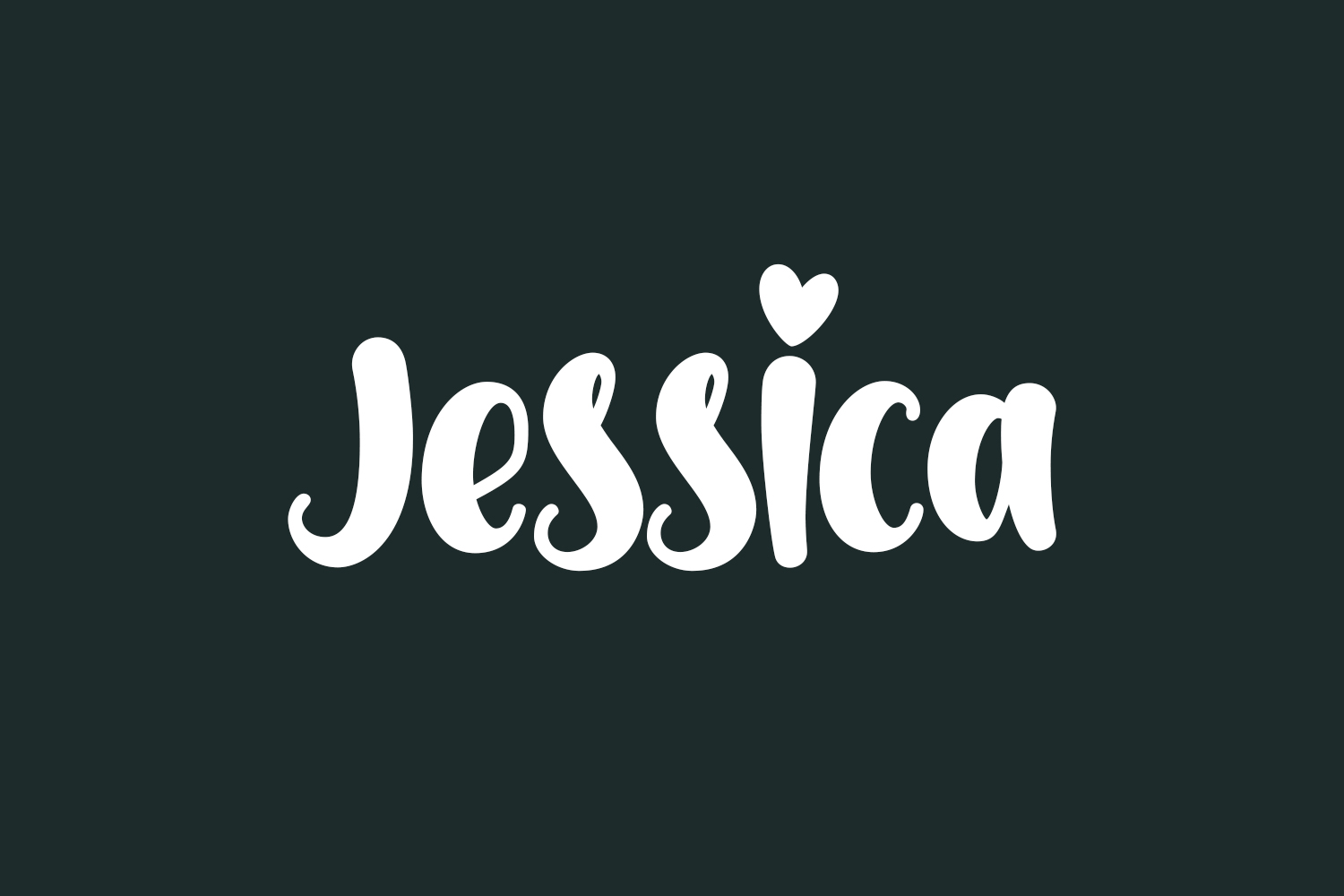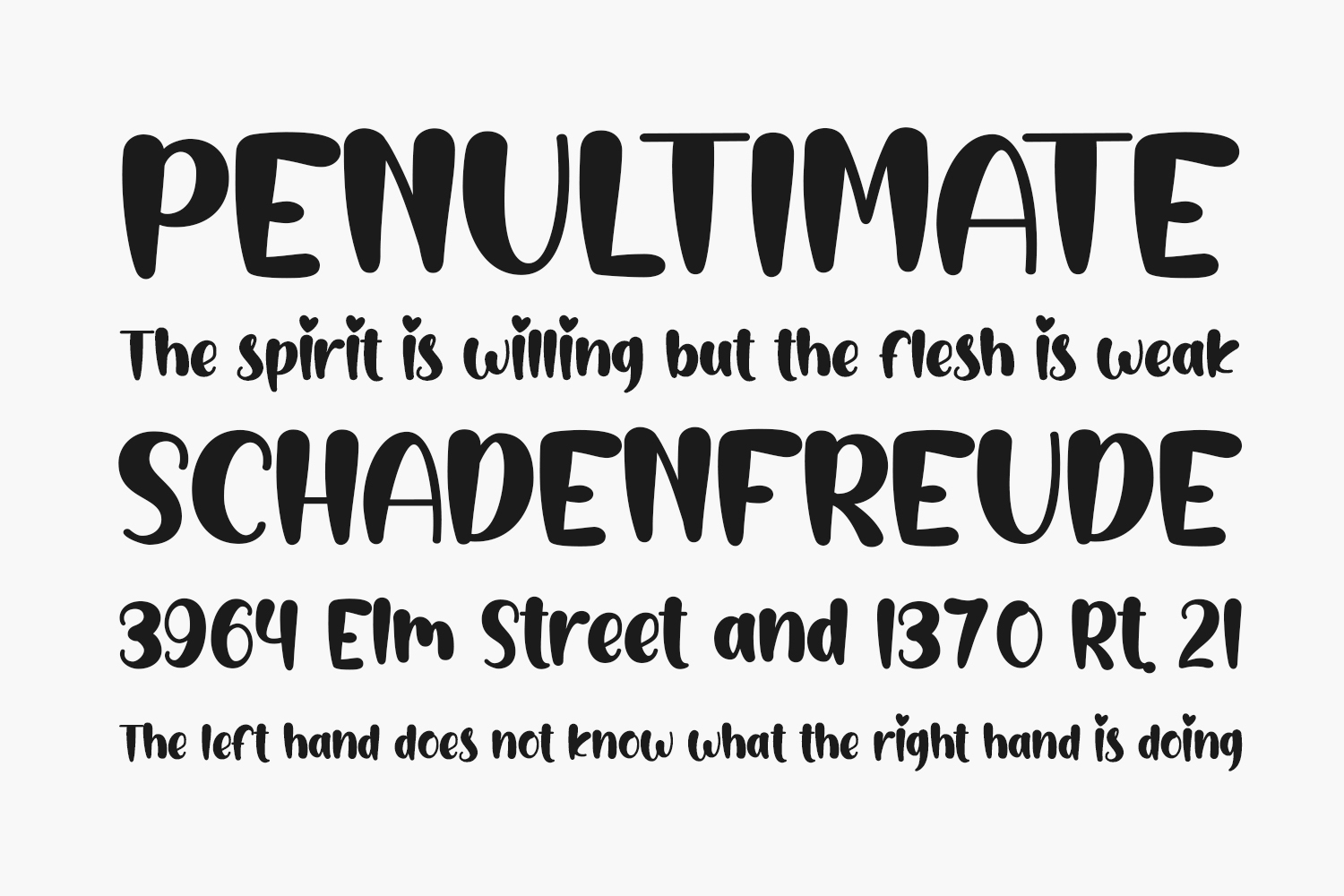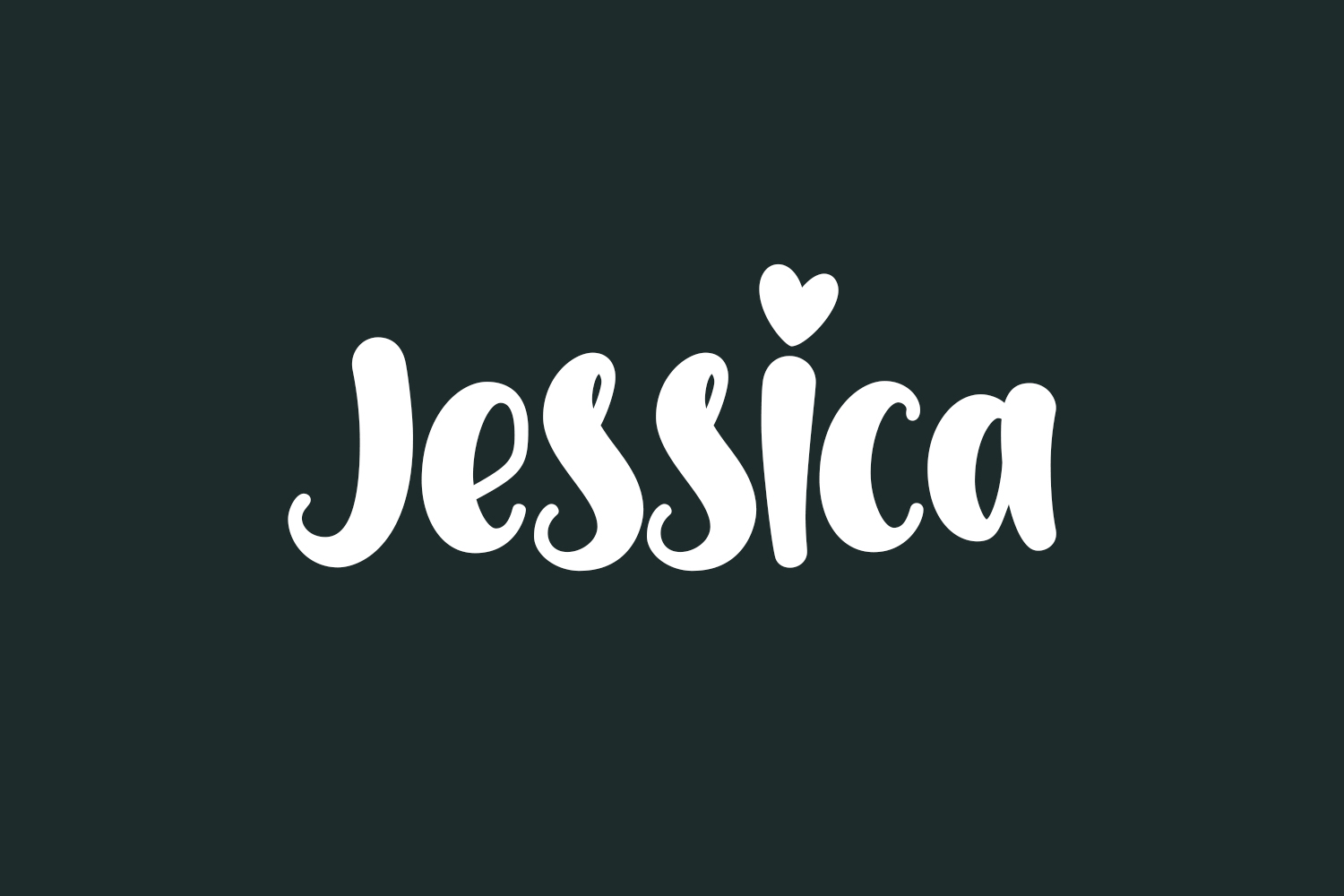
Jessica Free Font is a playful and stylish handwritten font that adds a touch of flair to invitations, thank you cards, quotes, greeting cards, logos, business cards, and any design in need of a personalized charm. Jessica Free Font is free for personal use only. Please purchase the full version for commercial use.